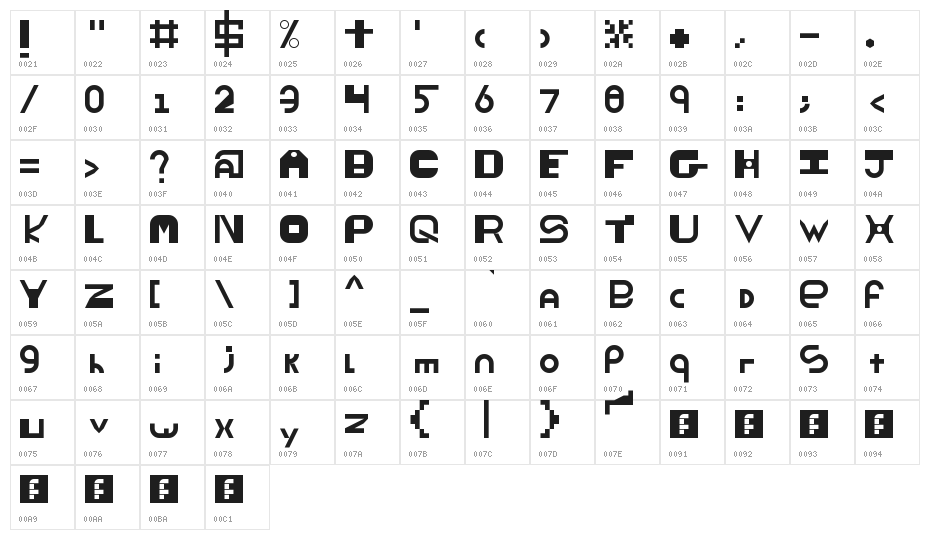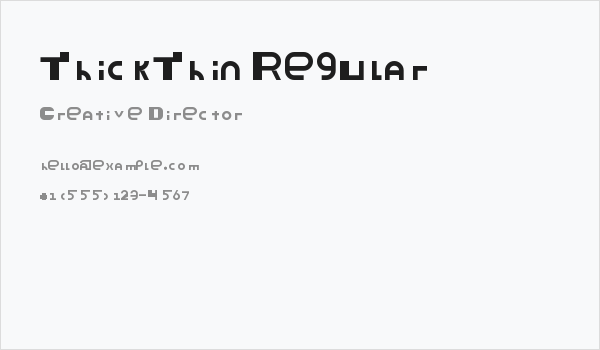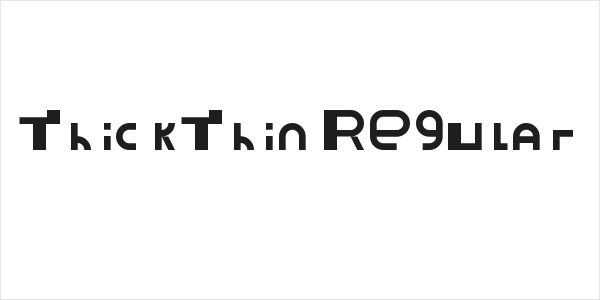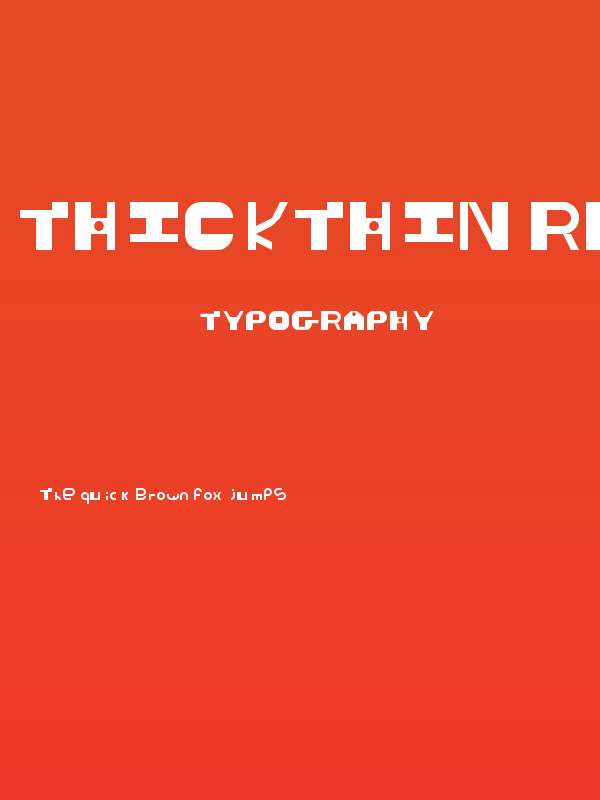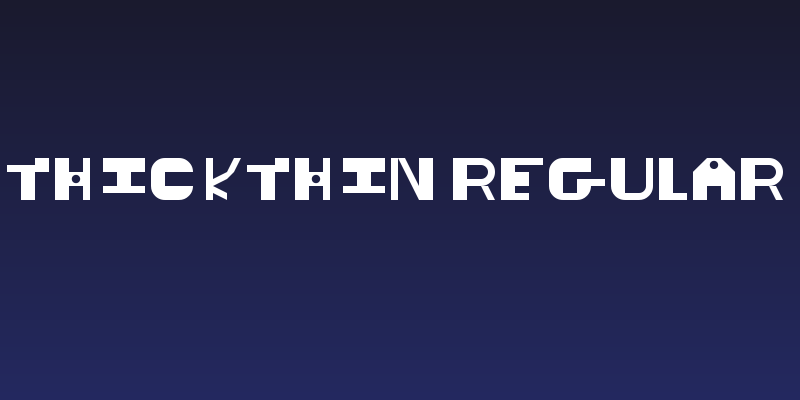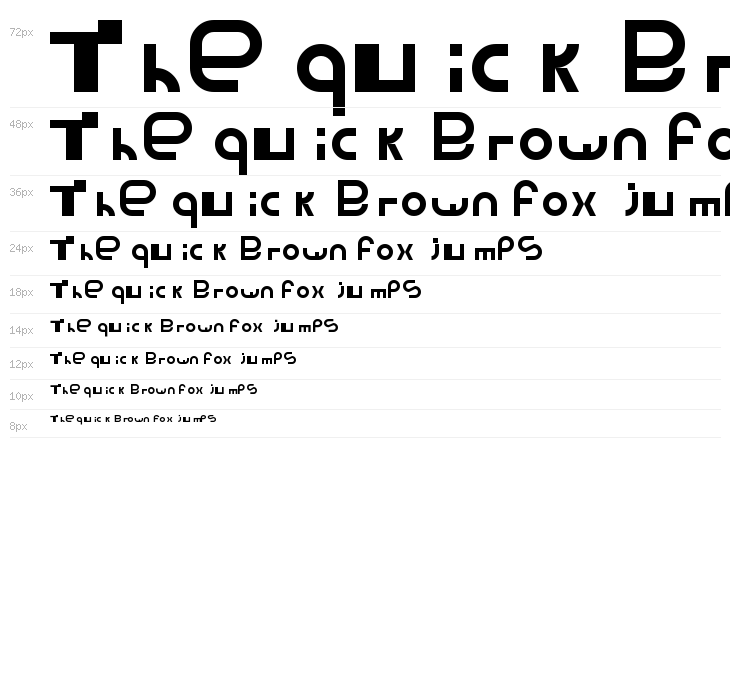
ThickThin Regular Font
ThickThin Regular Description
This font features a bold, geometric design with a distinct contrast between thick and thin strokes. The uppercase letters are characterized by strong, angular shapes, while the lowercase letters maintain a similar style with slightly softer edges. The numerals are consistent with the overall geometric theme, providing a cohesive look. Special characters are uniquely styled, adding a modern and edgy feel. The font's design is both eye-catching and versatile, making it suitable for a variety of creative projects.
| Proposed Projects | Ideal for branding, posters, headlines, and modern graphic design projects. |